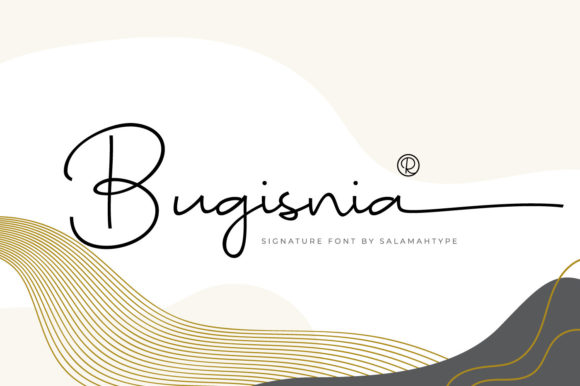
Exploring the Artistic Flow of Bugisnia Script for Modern Design
There is a distinct moment in the design process where you realize a project needs more than just text; it needs a voice. I remember opening the Bugisnia Script typeface for the first time and noticing an immediate sense of fluidity. It isn't just another script font; it carries a specific rhythm that feels both contemporary and timeless. As a premium font, it distinguishes itself through a delicate, thin-lettered structure that mimics the natural flow of a high-quality brush pen. For those of us working in brand identity or editorial design, finding a typeface that balances elegance with legibility is often the most challenging part of the job.
The Anatomy of a Flowing Typeface
When we talk about the visual characteristics of Bugisnia Script, we are looking at a masterclass in restraint. The "thin lettered" nature of the font is its defining trait. Unlike heavy, bold display fonts that scream for attention, Bugisnia invites the viewer in. The strokes taper naturally, creating a sense of airiness and sophistication. This makes it an exceptional creative font for projects that require a touch of class without overwhelming the visual hierarchy.
The "lovely flow" mentioned in its description isn't just marketing speak—it’s a technical reality. The connections between letters are smooth, avoiding the jagged or forced ligatures often seen in lower-quality handwritten fonts. This fluidity is crucial for logo design. A logo needs to be memorable, and the continuous movement of Bugisnia Script helps create a mark that the eye can follow easily. Whether you are designing for a boutique clothing brand, a high-end café, or a lifestyle blogger, this typeface sets a tone of effortless elegance.
Unlocking Potential: The Power of PUA Encoding
One of the most practical advantages of Bugisnia Script is its PUA (Private Use Areas) encoding. If you have ever struggled to access specific swashes or alternate characters in a font, you know how frustrating it can be. PUA encoding means that every glyph, flourish, and stylistic alternative is fully accessible, regardless of the software you are using.
For content creators and marketers who might not be using advanced vector software like Adobe Illustrator, this is a game-changer. You can access the full range of the font’s capabilities directly from character map tools or even word processors. This accessibility allows for endless possibilities. You can add a dramatic tail to a capital letter for a wedding invitation or keep it simple and short for web design headers. The ability to toggle these features easily ensures that your typography remains unique to the specific project, preventing your designs from looking generic.
Strategic Applications Across Media
Understanding where to deploy a script font like Bugisnia is just as important as choosing it. Because of its delicate weight, it performs exceptionally well in specific environments.
Mastering Font Pairings and Hierarchy
A common mistake I see in modern typography is the isolation of a display font. Bugisnia Script rarely works well on its own for long-form content. Its strength lies in contrast. To build a solid visual hierarchy, you must pair it with a typeface that grounds it.
For a clean, professional look, try pairing Bugisnia with a geometric sans serif font. The clean lines of the sans serif will provide a neutral background that allows the swashes and curves of the script to shine. Alternatively, if you are going for a more traditional or editorial vibe, a classic serif font can complement the script’s elegance, creating a sophisticated, layered aesthetic.
When testing your pairings, pay close attention to readability. Because Bugisnia is a thin typeface, ensure there is sufficient contrast against the background color. Light grey text on a white background might look stylish, but if the font weight is too thin, the message gets lost. Always prioritize the communication of the message over the style of the font.
Furthermore, take the time to explore the font files. A quality premium font often includes multiple weights or styles. While the description highlights the thin lettering, check for a medium or bold version within the family. Having access to a slightly heavier weight can be useful for subheadings, maintaining the personality of the typeface while improving legibility at smaller sizes.
Ultimately, Bugisnia Script offers a versatile toolset for the modern designer. It bridges the gap between raw, organic handwriting and polished, digital modern typography. By utilizing its PUA encoding and respecting its delicate structure, you can elevate your designs from simple layouts to compelling visual narratives. Whether you are a small business owner creating your own marketing materials or a professional designer refining a brand identity, this font provides the flexibility and style needed to make your work stand out.